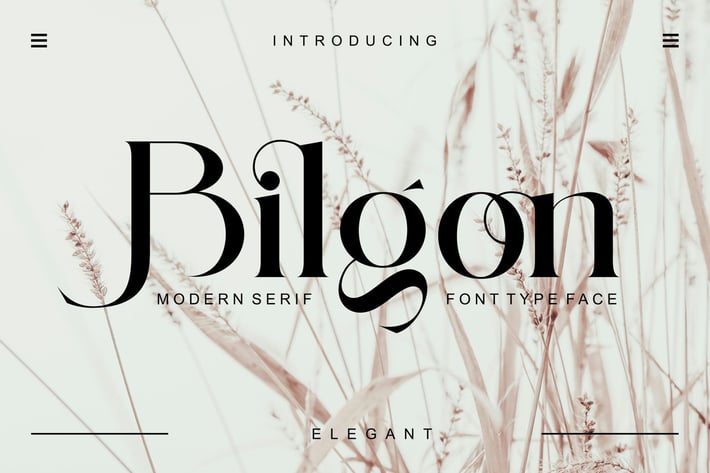
Bilgon Modern Serif Typeface
Bilgon Modern Serif Typeface inspired by the famous minimalist logo perfect for the purposes of designing templates, brochures, videos, advertising branding, logos, invitation, layout design, elegant crafting, beauty design and other